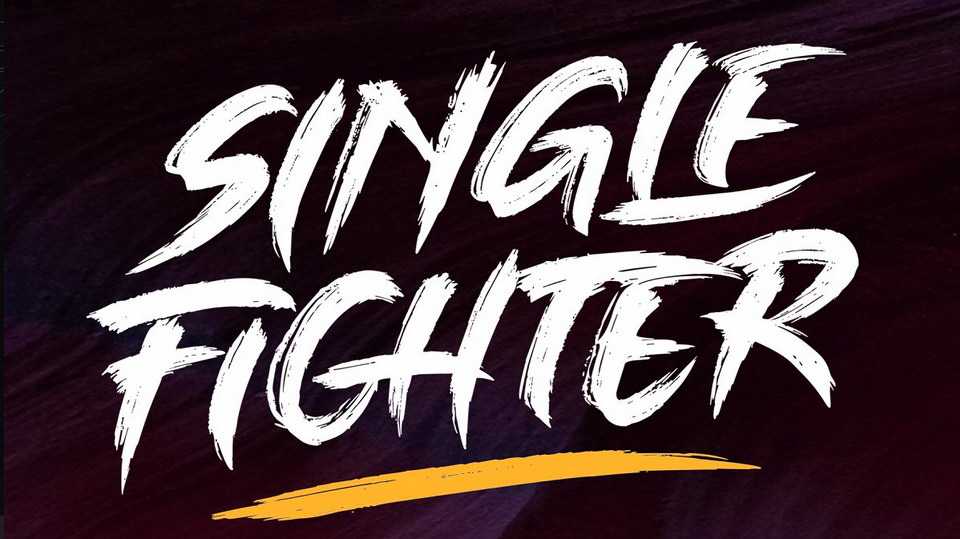
Download Single Fighter font, a supercharged, street-wise brush script bursting with energy and extra attention to quick strokes and sharp details.
Designer: Subectype